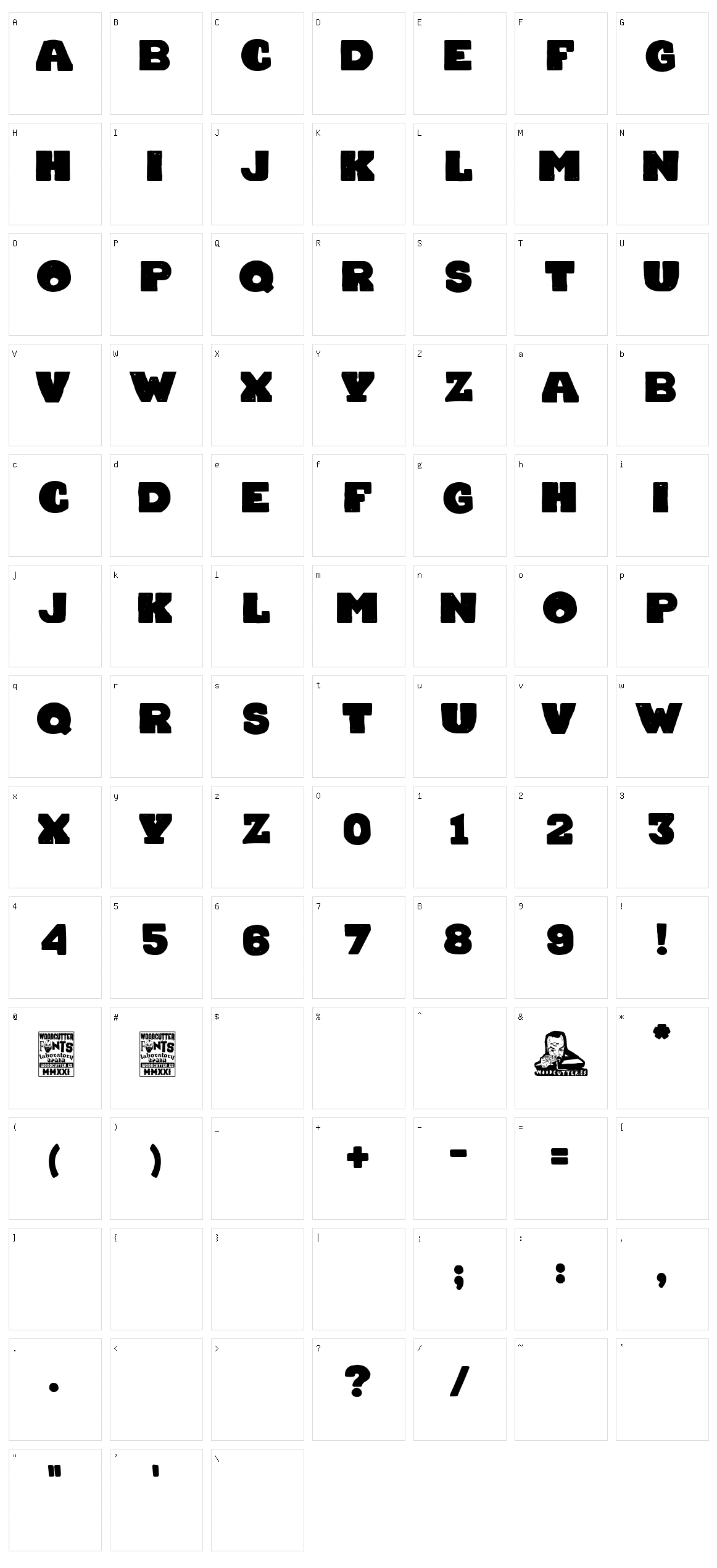
The free font Chocolate Team is carefully designed by Woodcutter, showcasing a thoughtful balance of creativity and usability and falls under the Cartoon font style. When you download the ZIP file, it contains only 99.64 KB of font files, making it lightweight and quick to download. Please review the license details below to understand permitted usage and distribution rights. If license information is not available, we recommend using this font for personal projects only or contacting the author directly for commercial usage permissions.